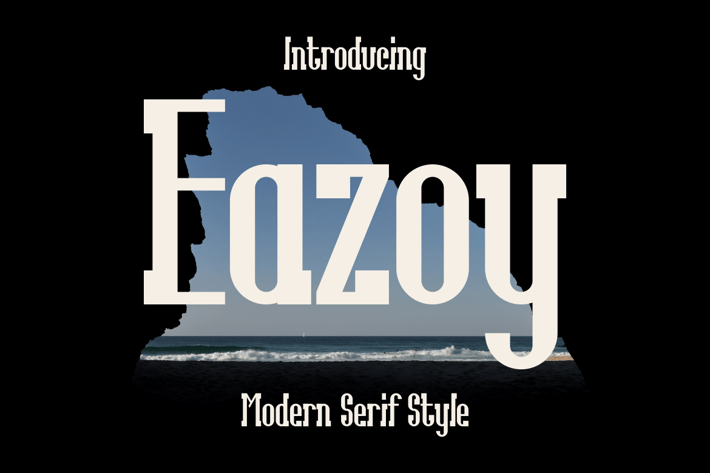
Eazoy Font
Introducing our new product Eazoy Font - Modern Font
Eazoy Font - Modern Font is a bold and authentic display font. The font is suitable for any branding project like logo, t-shirt printing, esport, and many more. outstanding in a wide range of contexts.